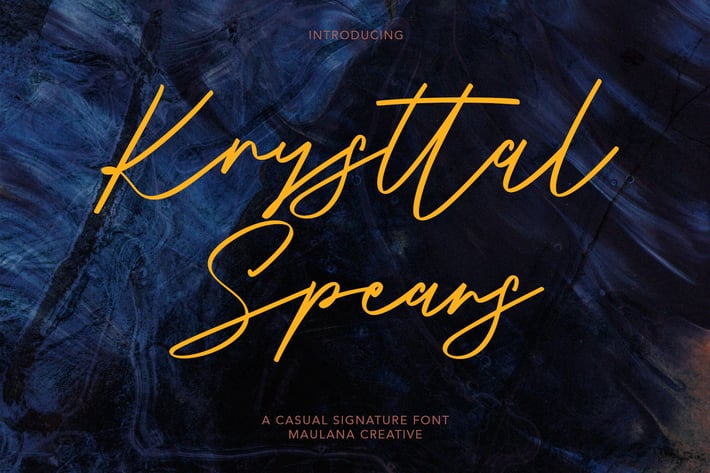
Krysttal Spears Casual Signature Font
Give your designs an authentic handcrafted feel. Krysttal Spears Casual Signature Font is perfectly suited to logo, stationery, branding, typography quotes, magazine or book cover, website header, clothing, branding, packaging design, restaurant and more.